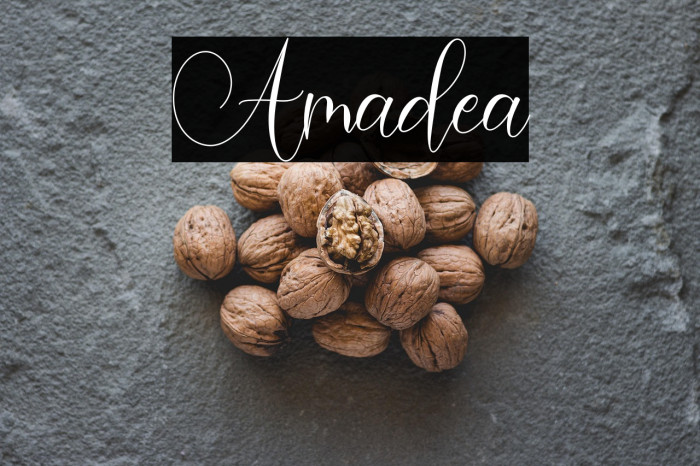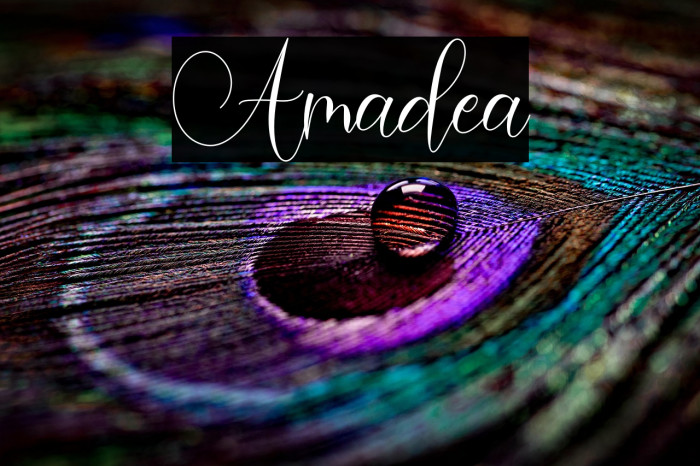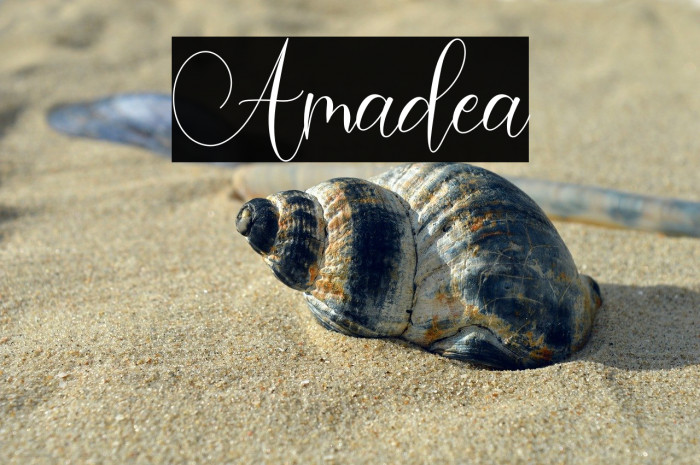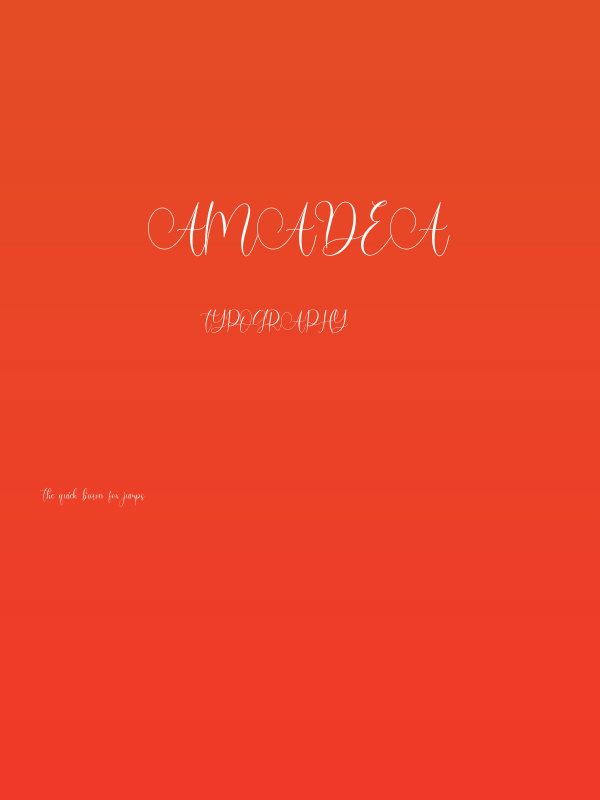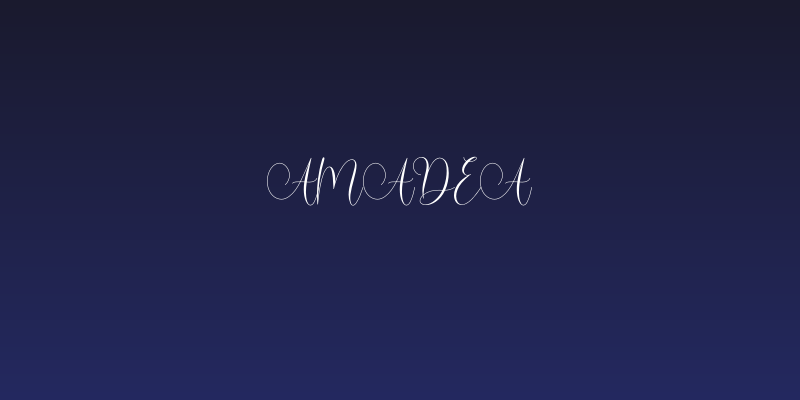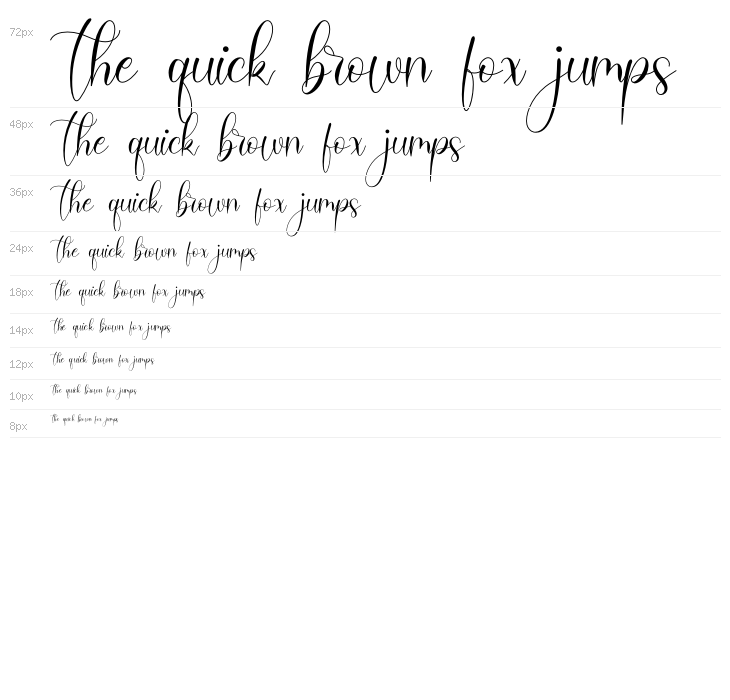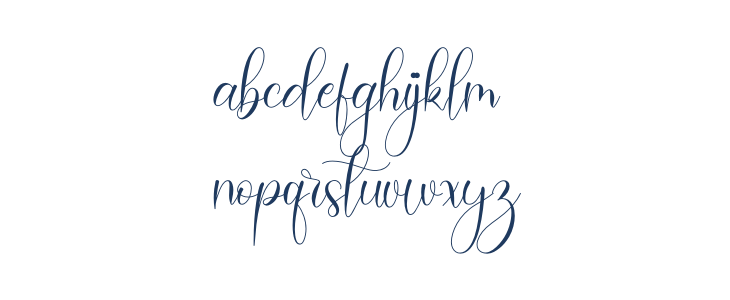
Amadea Font
Amadea Description
This font features an elegant and flowing script style, characterized by its graceful curves and delicate strokes. The uppercase letters are ornate, with sweeping lines that give a sense of movement and sophistication. The lowercase letters maintain a consistent style, with a slightly more compact form that complements the uppercase. The numerals are distinct and easy to read, while the special characters blend seamlessly with the overall design. This font exudes a sense of elegance and refinement, making it suitable for formal and decorative applications.
| Categories | Script |
| Overall Style | Elegant |
| Use Case | Logos, Invitations, Decorative text |
| Proposed Projects | Ideal for wedding invitations, elegant branding, greeting cards, and high-end product packaging. |